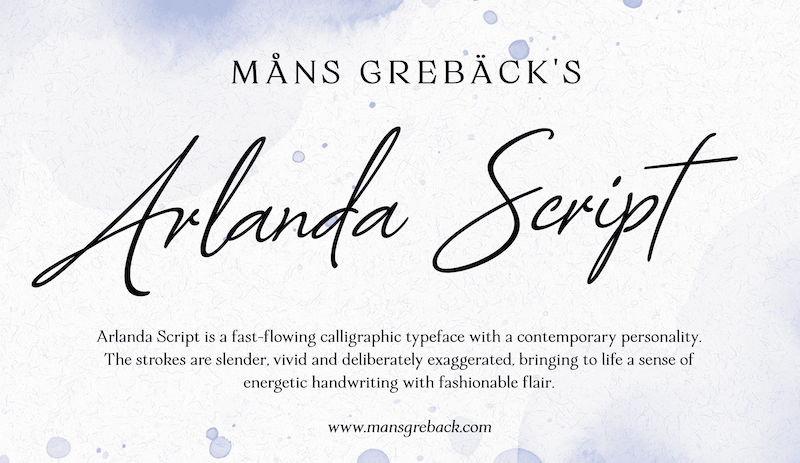
Preview and download Arlanda Script Font. Created by Måns Grebäck in Script Handwritten styles with Free for personal use license.
Font name: | Arlanda Script |
NOTE: This font is for PERSONAL USE ONLY! To purchase a commercial license, visit: https://www.mansgreback.com/product/arlanda-script Arlanda Script is a fast-flowing calligraphic typeface with a contemporary personality. The strokes are slender, vivid and deliberately exaggerated, bringing to life a sense of energetic handwriting with fashionable flair. Use underscore _ to make a swash underline. Example: Rosen_lover Use multiple underscores to make different swashes. Example: Wonder____woman For questions, please visit www.mn.sg/faq |